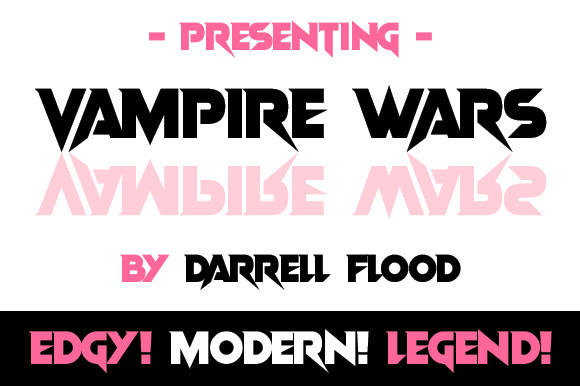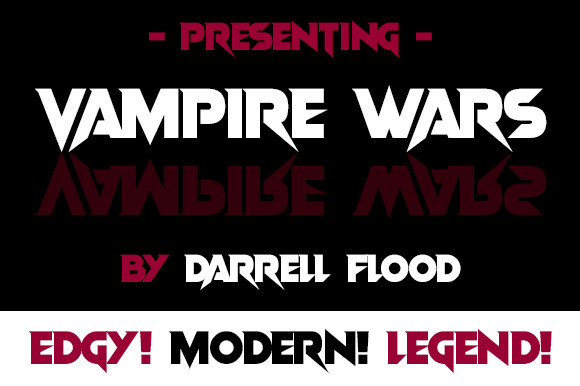
Vampire Wars Display Font
Vampire Wars Display Font is a razor-sharp, modern serif font in a bold, expressive style, perfect for Horror projects or metal music designs.